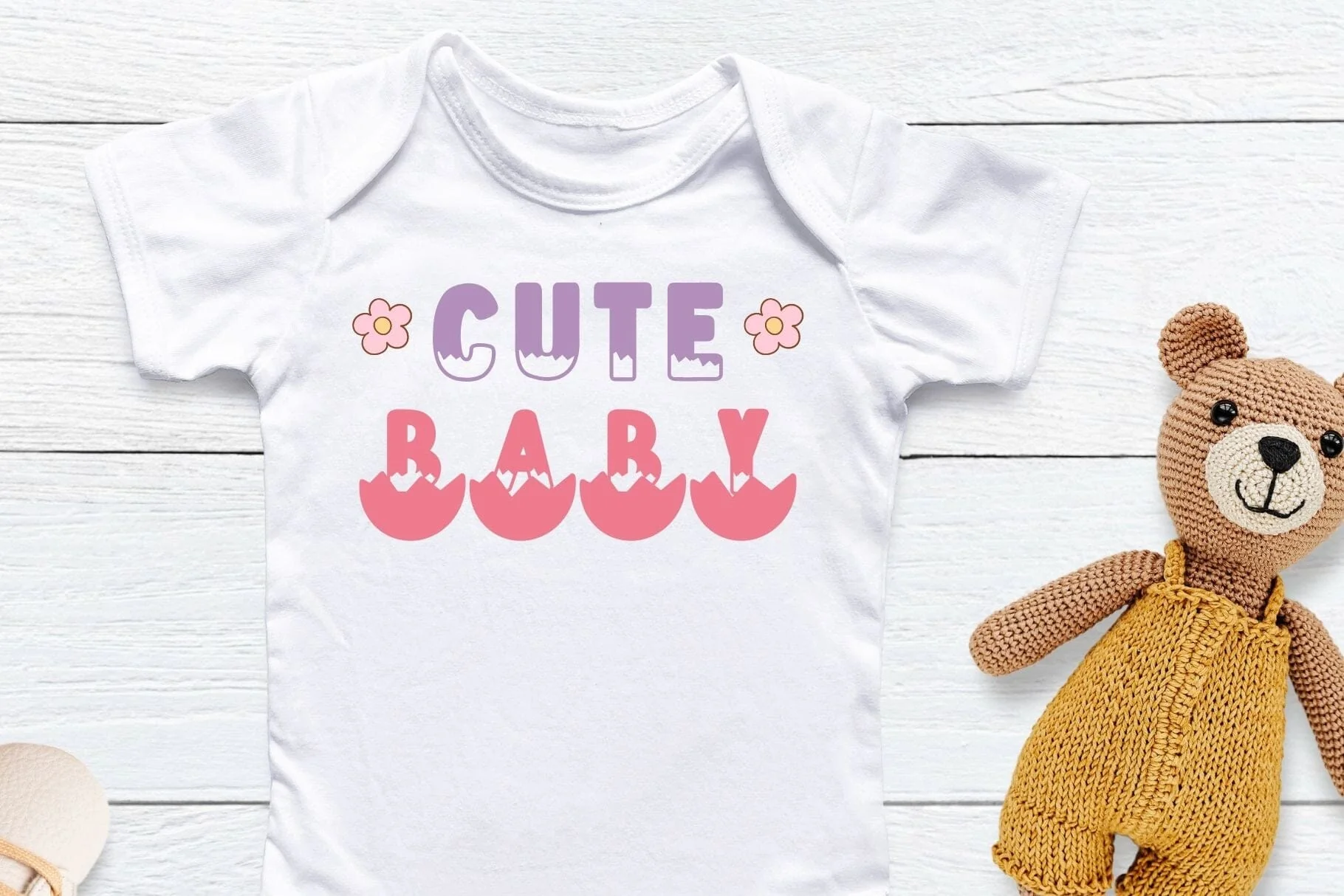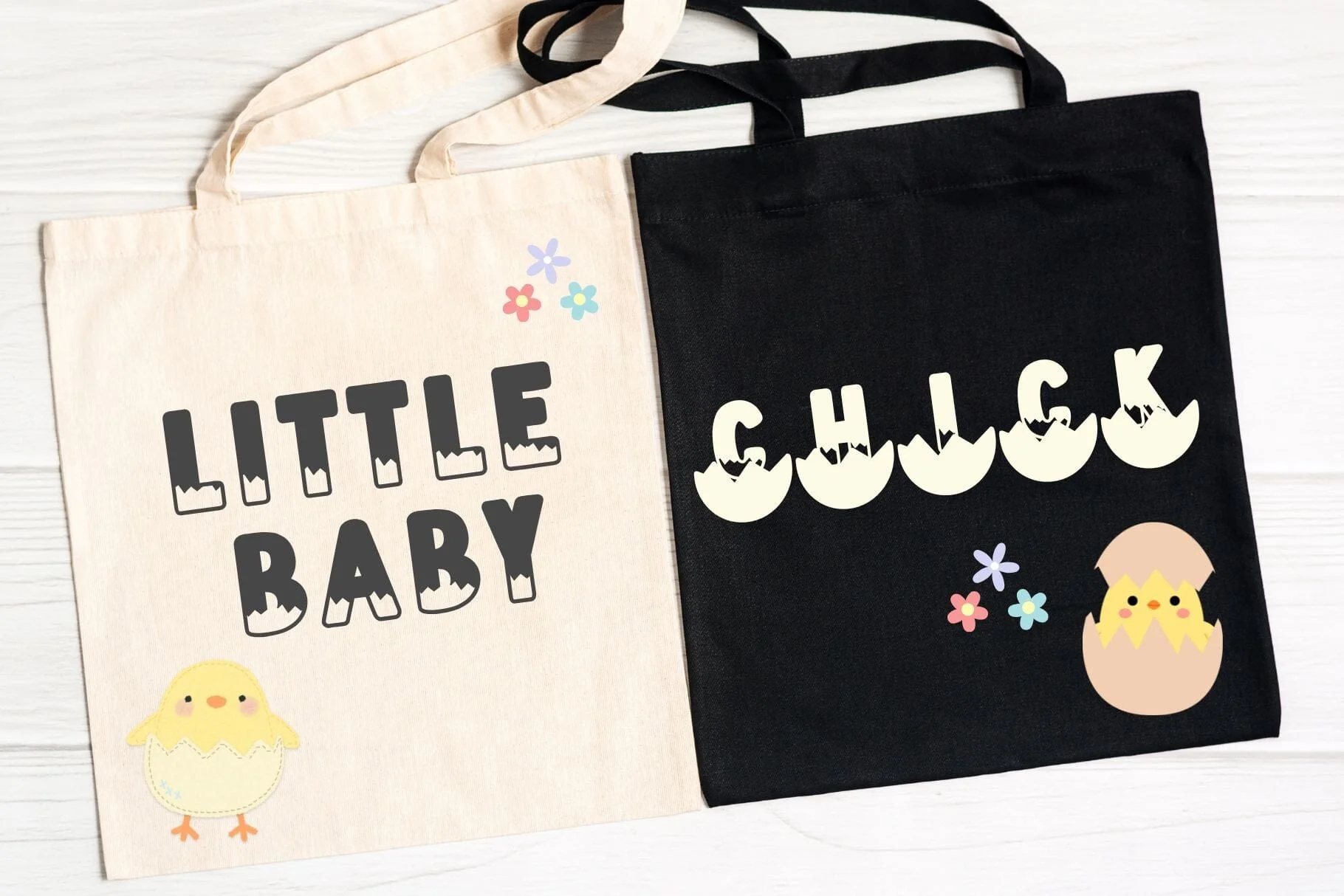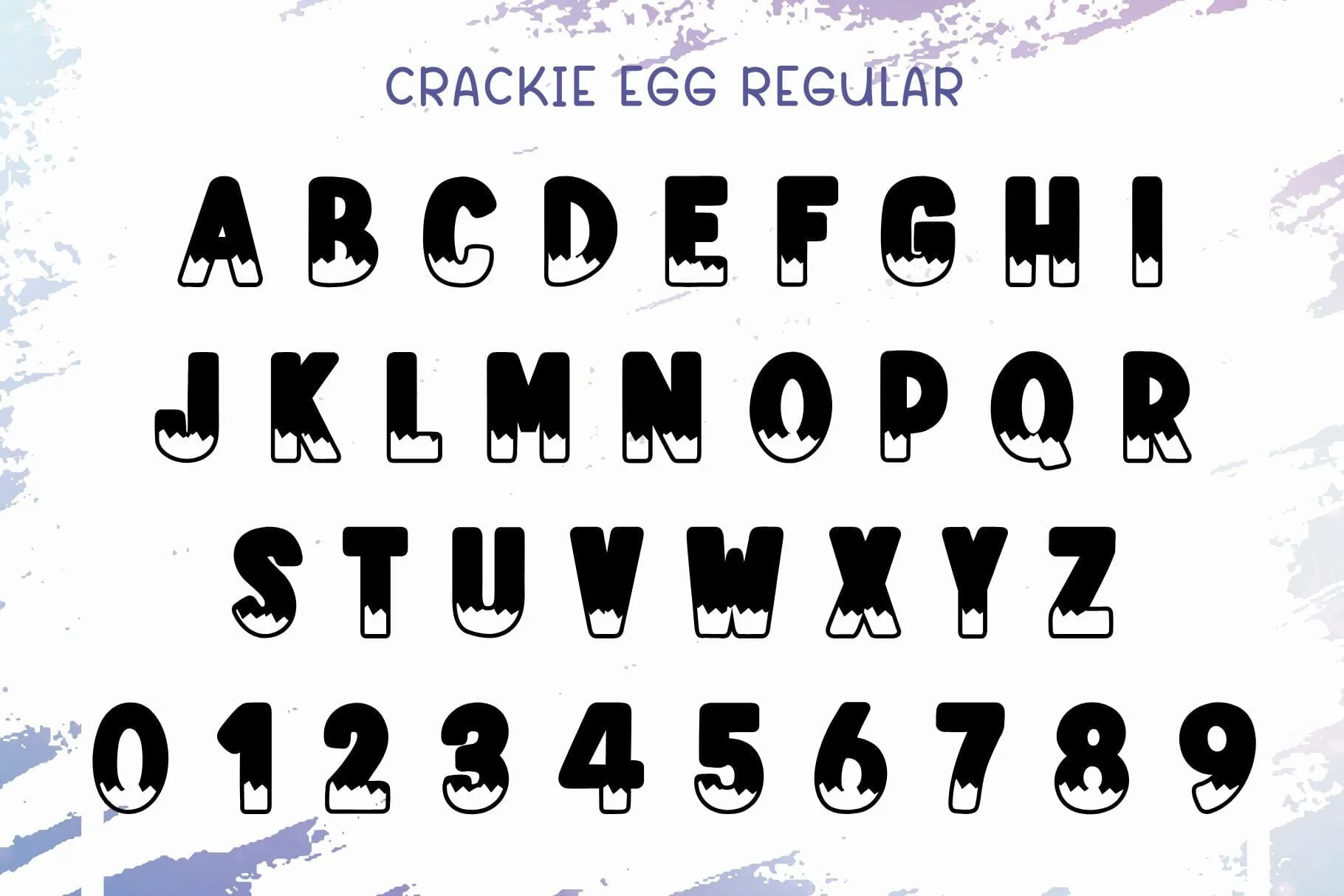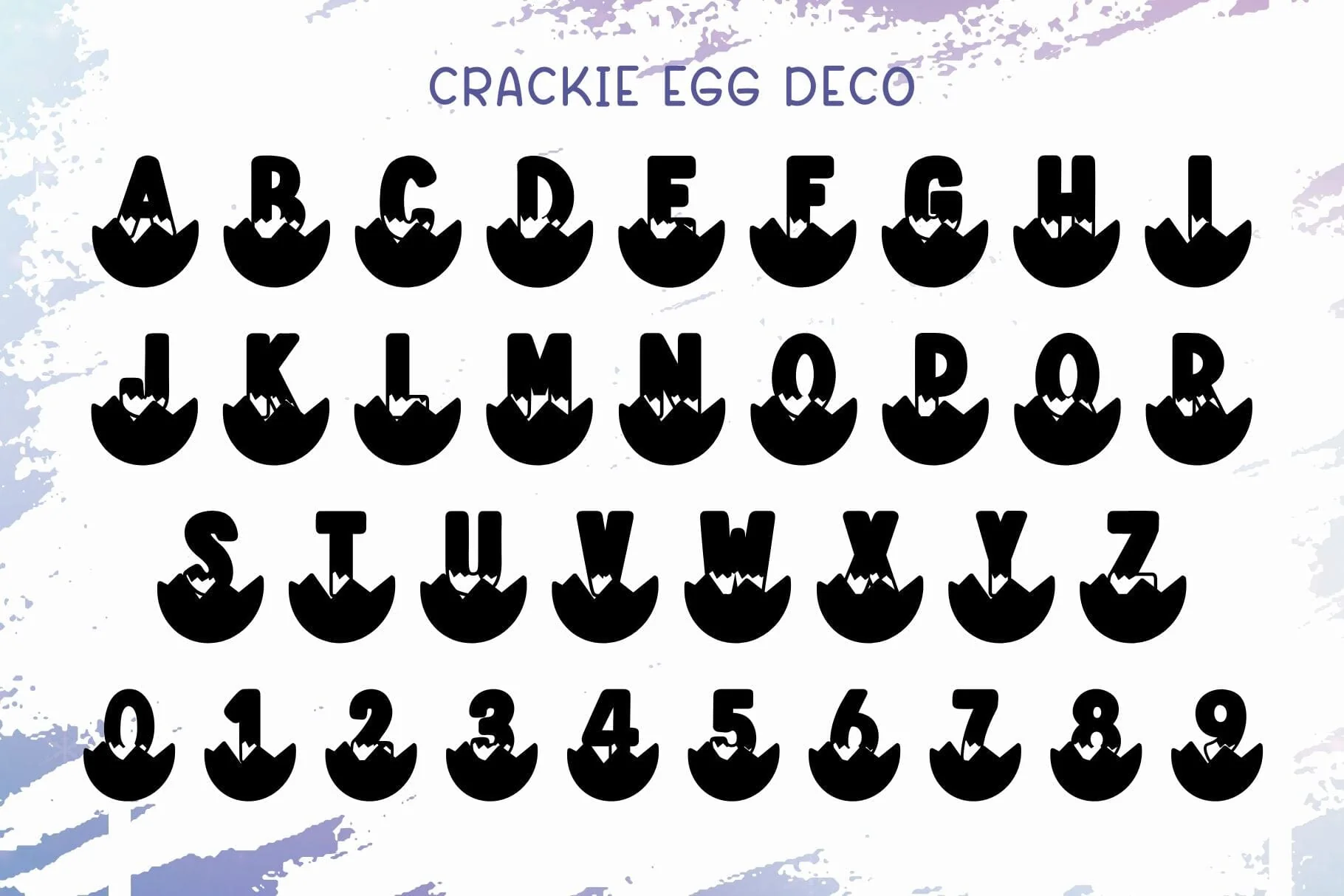
Crackie Egg – Cute Easter Display Font
Crackie Egg is a playful and cute decorative display font inspired by cracked eggs and Easter fun. This font features a bold, rounded style with charming egg-crack details, perfect for cheerful spring and kids designs.
Designed to be fun, friendly, and easy to use, Crackie Egg adds a joyful handmade feel to both digital and print creations.